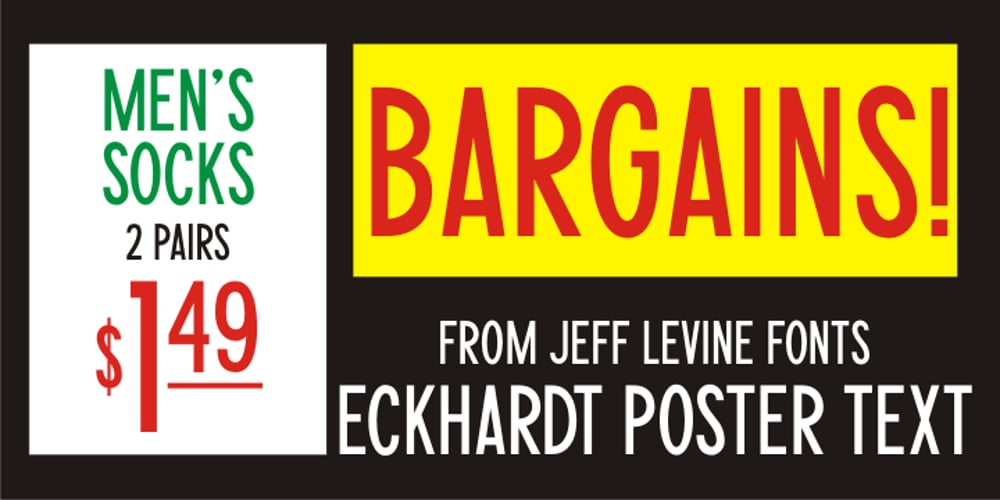
Eckhardt Poster Text JNL Font Family was designed by Jeff Levine and published by Jeff Levine. Eckhardt Poster Text JNL contains 1 styles and family package options. Eckhardt Poster Text JNL continues Jeff Levine’s series of sign painter-oriented fonts, named in honor of his good friend Albert Eckhardt, Jr. (who ran Allied signs in Miami, Florida from 1959 until his passing). Sign painters are the true heroes of lettering, for they make the alphabet and style fit the job. Printers and layout artists were constricted by metal and wood type; that is until photo lettering, then digital type opened up unexplored territories in design possibilities. There is a unique charm (and nowadays pretty much a lost art) to hand-lettering word copy in a way that draws the eye like an arrow to a target. Even a simple sanserif such as Eckhardt Poster Text JNL can have the effect of that hand lettering when applied to posters and pages with plenty of white space and matching type designs of the period.